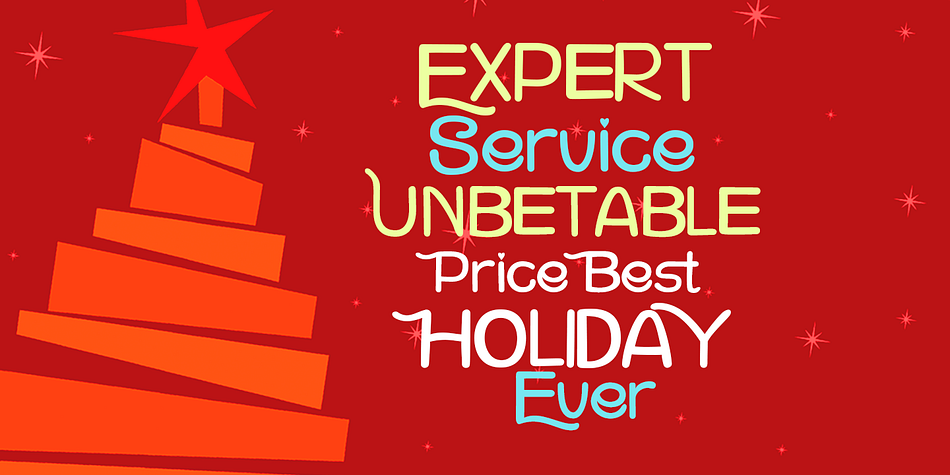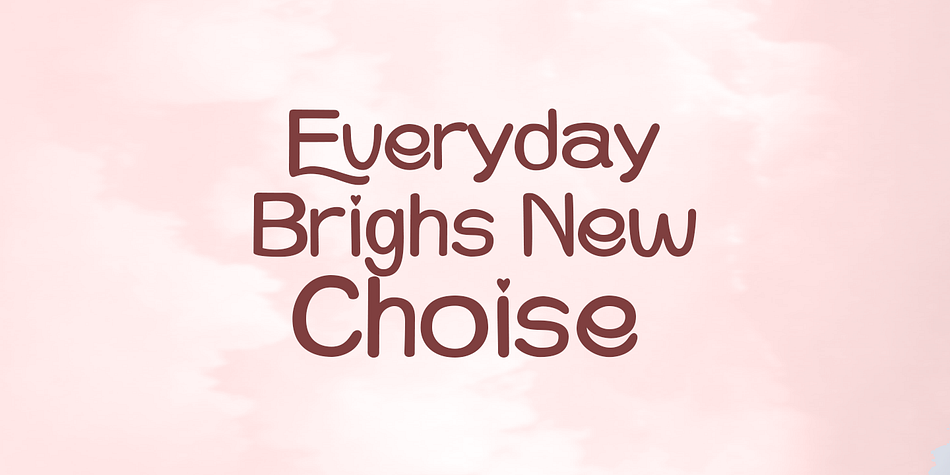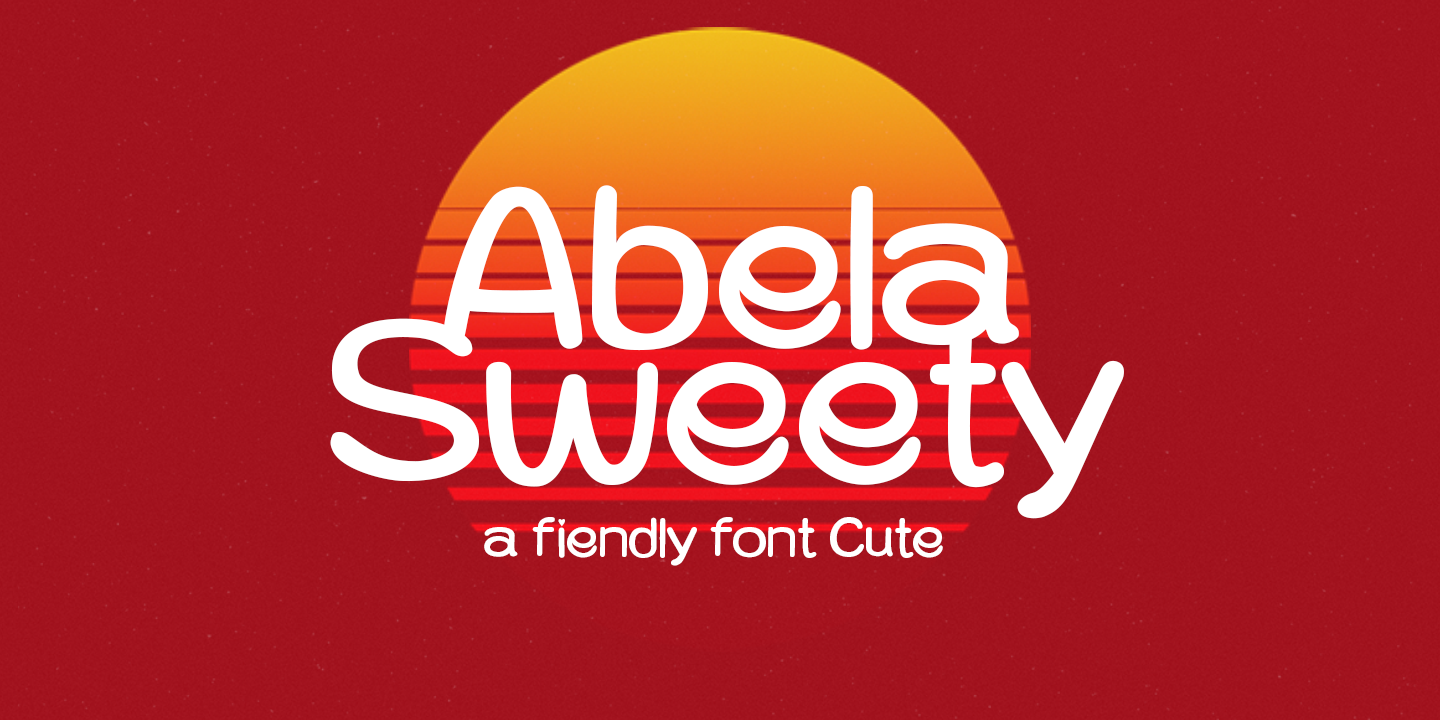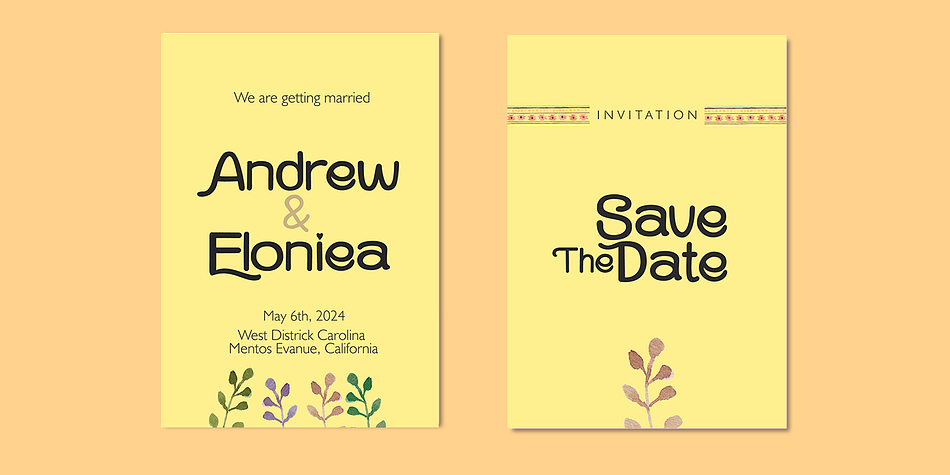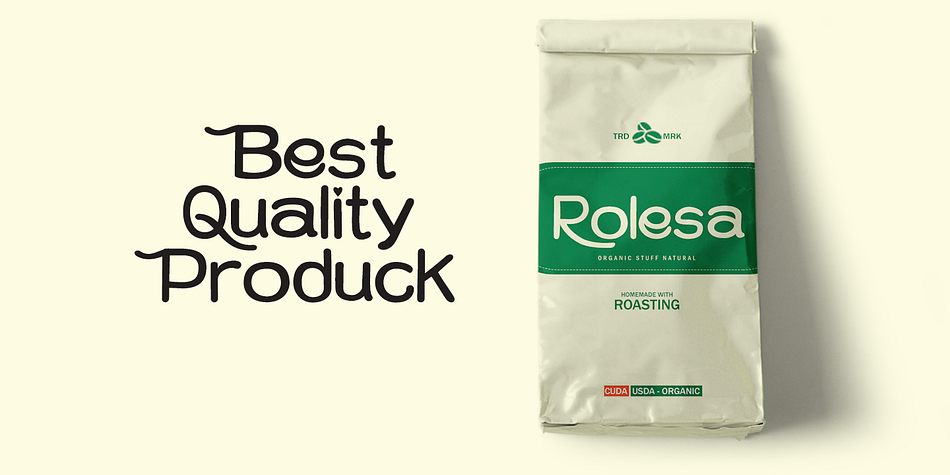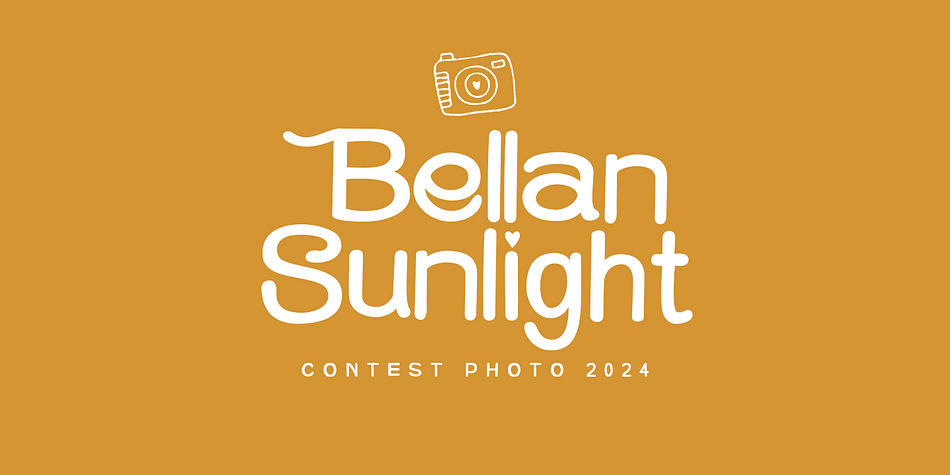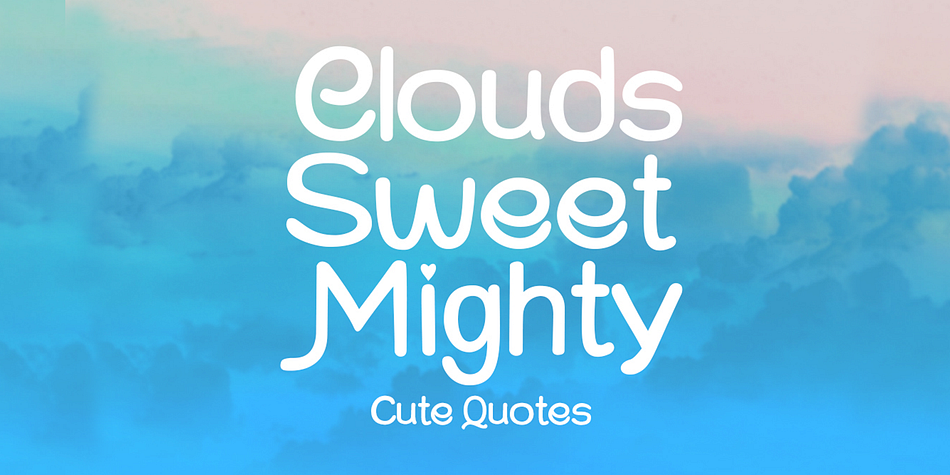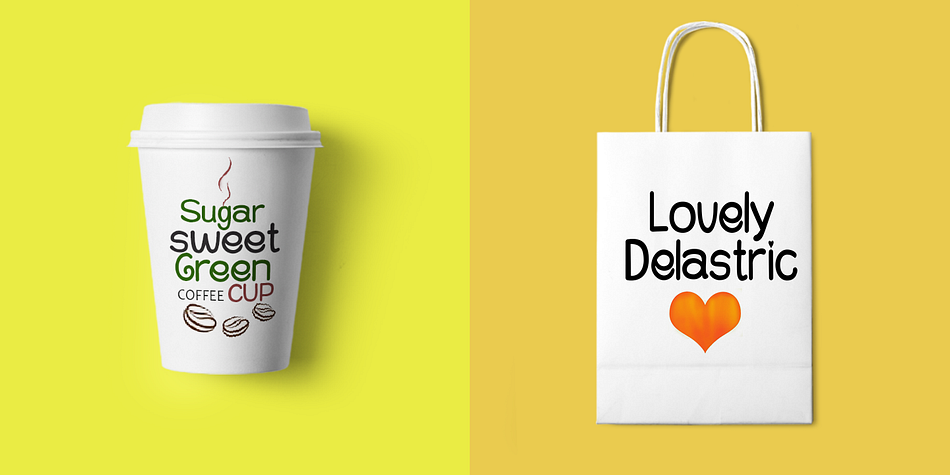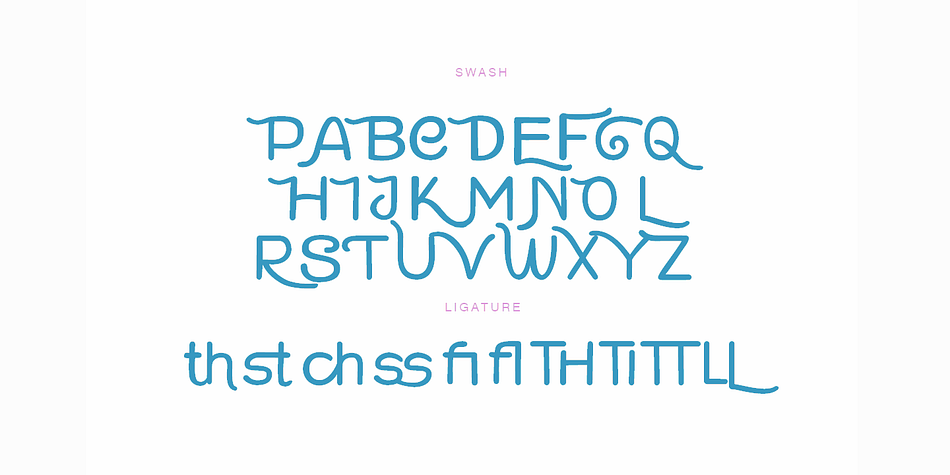
Abela Sweety
Abela Sweety is a display sans font family published by Gatype.
Abela Sweety is a monoline comic display font, a very unique trendy font with a combination of modern character bindings, and in my opinion this product suits the teaser display theme in every headline design, business cards, leaflets, magazines, children’s events and brand screen printing.